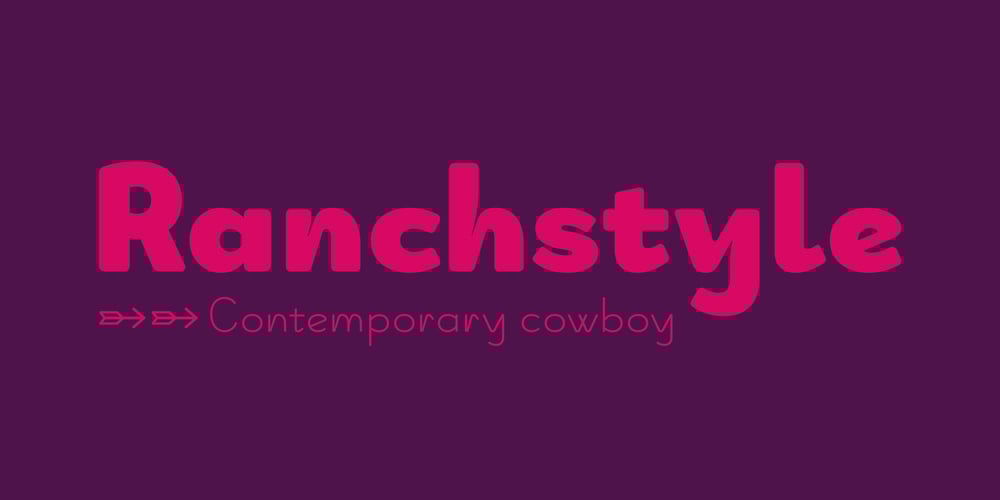
Ranchstyle Font Family was designed by Monica Maccaux and published by Ampersand Type Foundry. Ranchstyle contains 5 styles and family package options. Based off of research into Nevada cattle branding irons of the 19th century, Ranchstyle takes the vernacular from rancher’s brands of the old west, digitizes it, and brings it into the contemporary world as a vivacious spunky typeface. The letterforms mimic bent metal and have the fluidity that follows such a material.